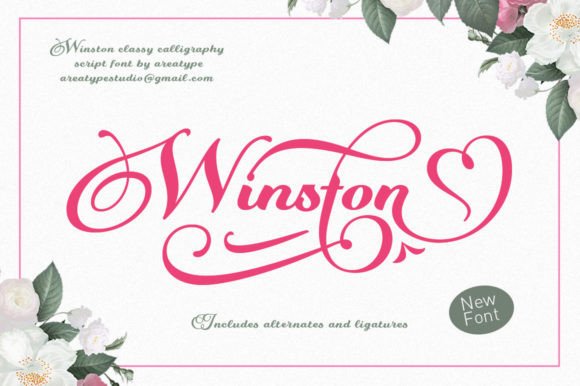
In the realm of typography, where artistry meets expression, lies Winston Font - a script masterpiece crafted to elevate your designs with timeless elegance. Dive into the world of Winston and discover a font that is not merely a collection of letters, but an exquisite work of art.
Winston Font belongs to the script font family, a genre known for its distinctive, flowing characters that mimic the graceful strokes of a calligrapher's hand. This font exudes sophistication and charm, making it the ideal choice for projects seeking a touch of classic beauty.
Created by the talented team at Area Type, Winston Font embodies elegance in every curve and stroke. Its lines dance across the page with an effortless grace, capturing the essence of timeless design. Whether you're a seasoned designer or a creative enthusiast, Winston Font will seamlessly blend into your projects, adding an air of sophistication and refinement.
With Winston Font at your disposal, you can effortlessly design book covers that captivate and intrigue. Its characters, reminiscent of vintage manuscripts, transport readers to a world of adventure, mystery, and enchantment. Let your book covers tell a story even before the first page is turned, leaving a lasting impression on your audience.
But Winston Font's versatility extends far beyond book covers. Its timeless style lends itself effortlessly to a wide range of projects, including branding, logos, invitations, posters, and even social media graphics. Its ability to seamlessly adapt to different contexts makes it a true asset in any designer's toolkit.
As a PUA-encoded font, Winston Font grants you access to a treasure trove of glyphs and ligatures, empowering you to unleash your creativity without limits. Experiment with various character combinations, explore diverse stylistic alternatives, and add intricate details to your designs.